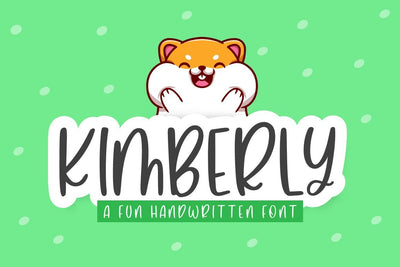
Kimberly | Fun Handwritten Font
Kimberly is a fun handwritten font, has the top of the letter expanding and she is so cute for your design. Kimberly is perfect for SVG design, handmade design, cards, t-shirts, quotes, stationery design, mugs, children's design and much more!
ÁÂÄÀÅÃÆÇÉÊËÈÍÎÏÌÑÓÔÖÒØÕŒŠÚÛÜÙÝŸŽ
àáâãäåæçèéêëìíîïñòóôõöøœùúûüýÿšž